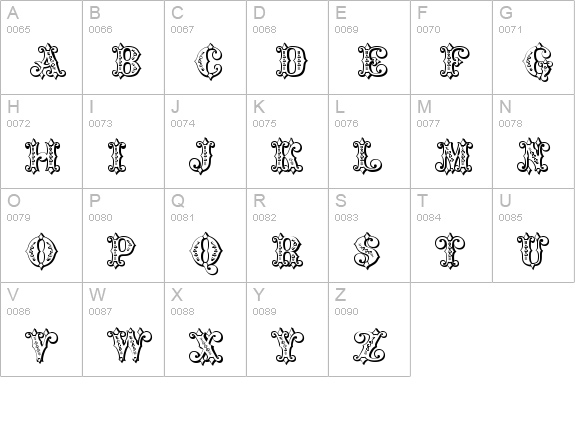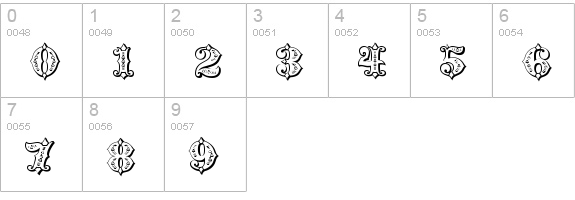
Maverick's Lucky Clubs font is a versatile and stylish typeface that exudes a sense of originality and flair. With its unique design and playful charm, this font is perfect for adding a touch of whimsy to any project. The Lucky Clubs font features a bold and eye-catching look that is sure to make your text standout. Whether you're working on a poster, logo, or branding design, Maverick's Lucky Clubs font will bring a fresh and dynamic feel to your work. The best part? Maverick's Lucky Clubs font is available for free download at FontsMarket.com. This means you can easily access this fantastic font and incorporate it into your projects without any cost. So why wait? Add a touch of luck and creativity to your designs with Maverick's Lucky Clubs font today!